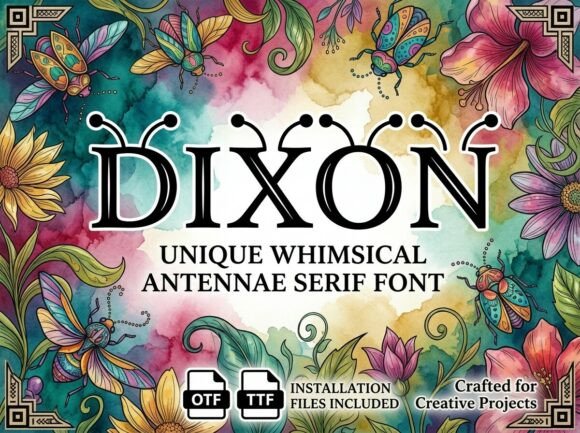
Discover the Whimsical World of Dixon Font
I’ll never forget the design struggle I faced while working on a children’s book project. My client wanted a font that was both playful and sophisticated, but I was coming up blank. That’s when I stumbled upon Dixon Font, a unique display serif that has since become my go-to for projects that require a dash of whimsy. In this article, I’ll share my love for Dixon, its features, and how to make the most of it in your designs.
What Makes Dixon Font So Special?
Dixon Font is a one-of-a-kind display serif that captures an “eccentric-and-insectoid” soul. Its classic, high-contrast serif letterforms are characterized by rhythmic, hand-drawn antennae accents and spherical terminals that mimic the playful anatomy of garden bugs. This bold structural weight and quirky personality make Dixon the premier choice for independent entomology branding, creative science museum exhibits, whimsical children’s logos, and high-impact “curious-and-crawling” social media headers.
My Honest Review of Dixon Font
- ✨ Unique and quirky design that’s sure to turn heads
- ✅ High-contrast serif letterforms for added elegance
- 🎉 Hand-drawn antennae accents and spherical terminals for a playful touch
- 💻 Works beautifully for both digital and print projects
While Dixon Font is a stunning addition to any design project, there are a few things to keep in mind:
- ⚠️ May not be suitable for body text due to its bold structural weight
- 🤔 Limited legibility at very small font sizes
The Backstory of Dixon Font
Dixon Font was designed by a team of creatives who wanted to capture the playful, eccentric spirit of garden bugs. Inspired by the intricate details of insect anatomy, they created a font that would bring a touch of whimsy to any design project. While the actual design process may be shrouded in mystery, it’s clear that Dixon Font is a labor of love that will delight designers and audiences alike.
Q: What is Dixon Font best used for?
A: Dixon Font is best used for projects that require a bold, playful, and sophisticated font, such as independent entomology branding, creative science museum exhibits, whimsical children’s logos, and high-impact social media headers.
Q: Is Dixon Font suitable for body text?
A: While Dixon Font is a beautiful font, it may not be suitable for body text due to its bold structural weight. It’s best used for headlines or titles where you want to make a statement.